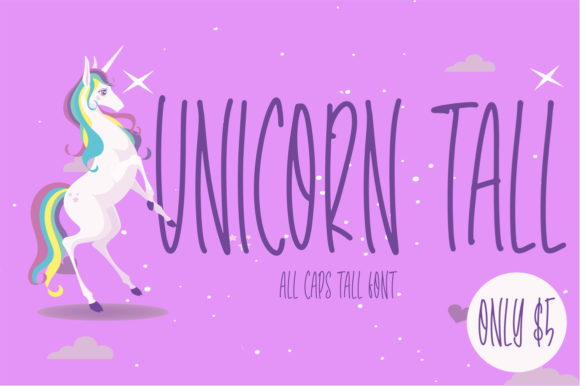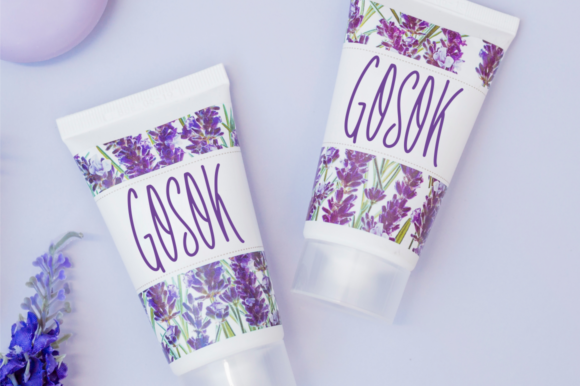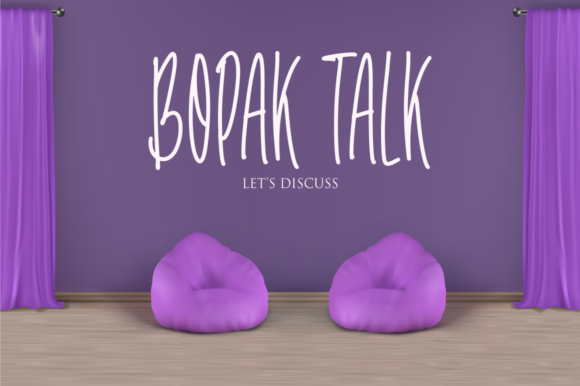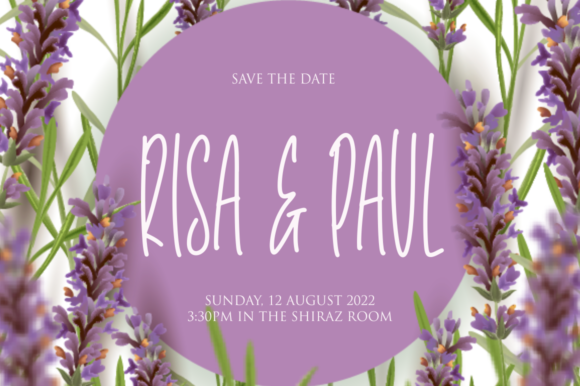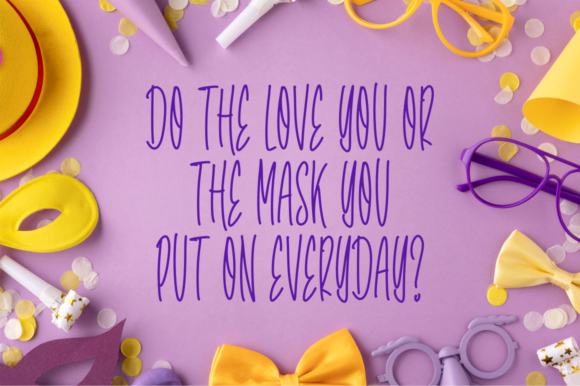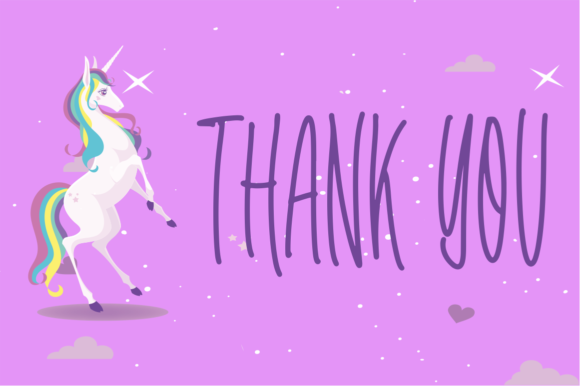
Unicorn Tall Font
About Unicorn Tall Font
Unicorn Tall is a handwritten font that can be used for all chalkboard quotes or teaching material! Its authentic look and feel will add a personal and realistic feel to your designs.